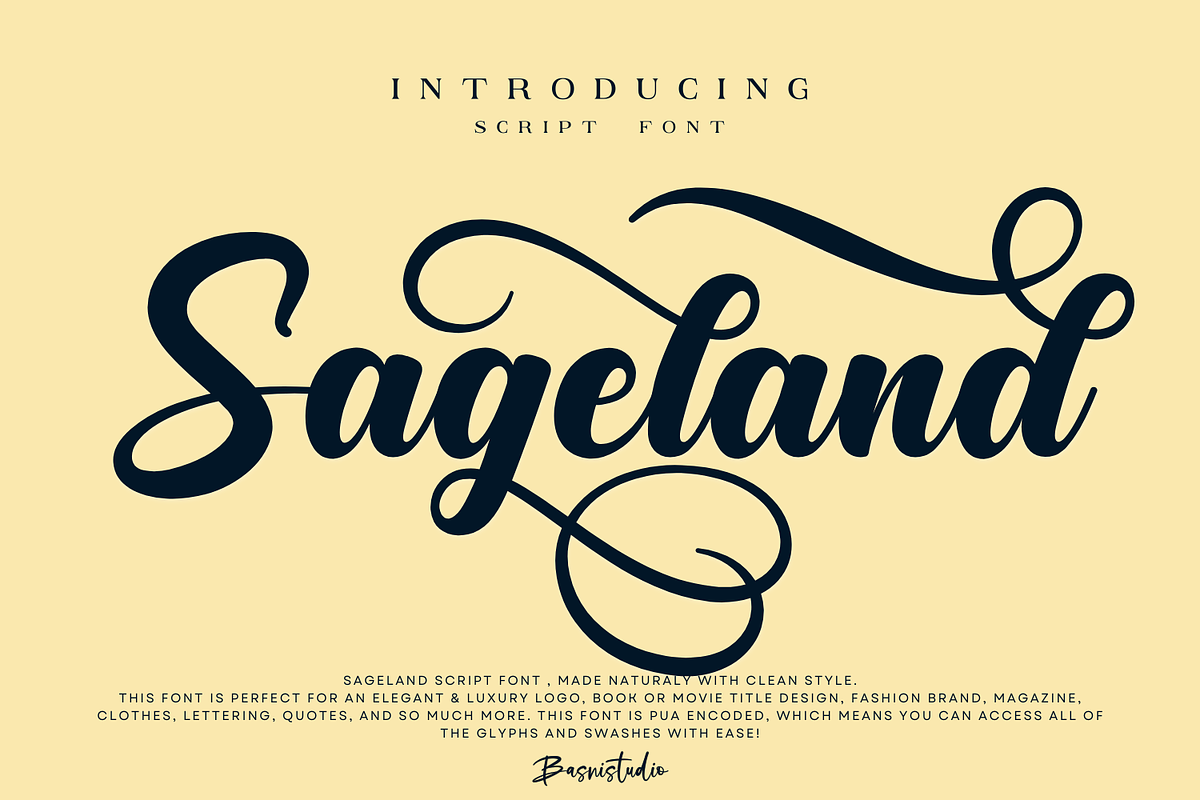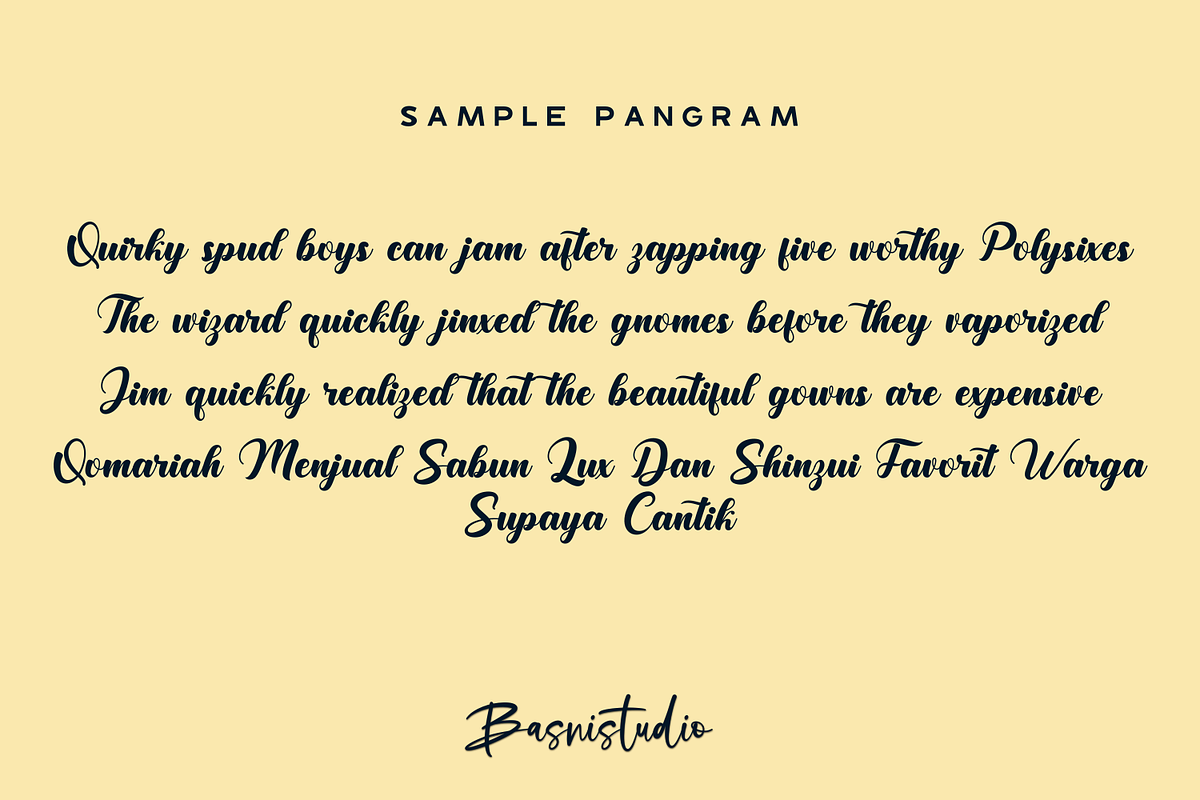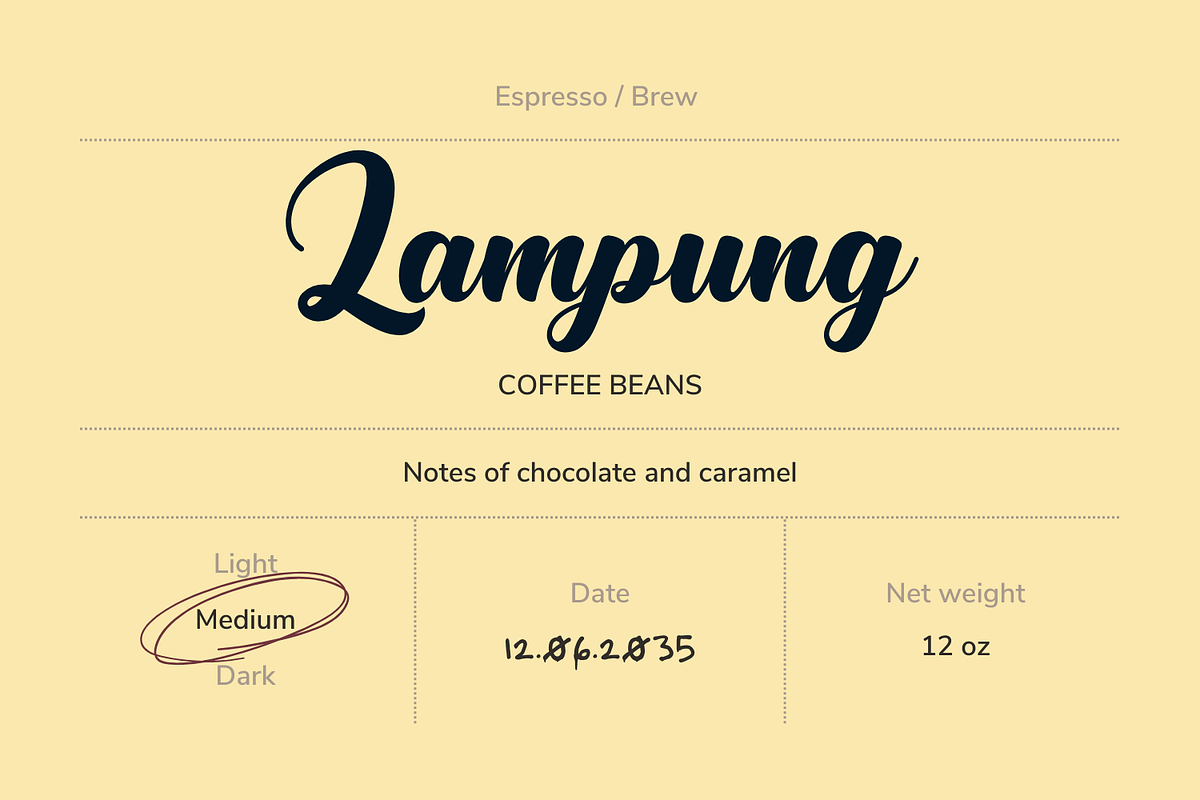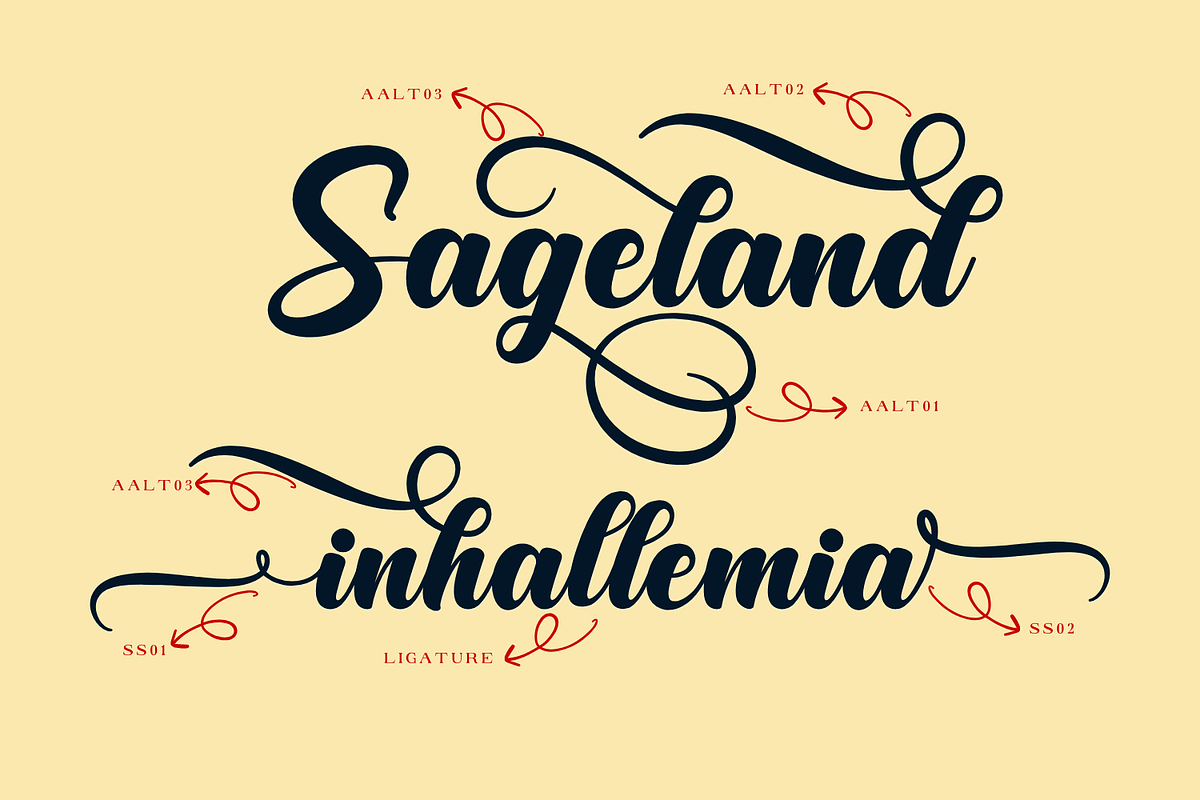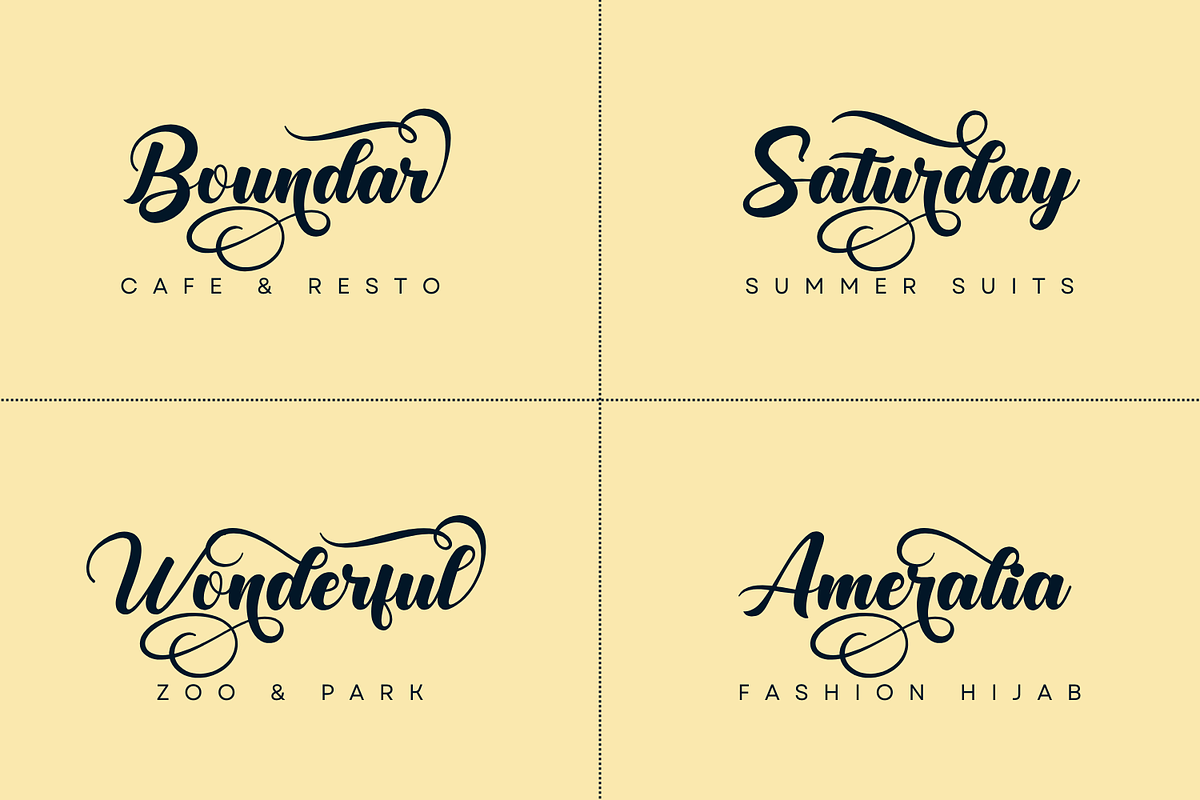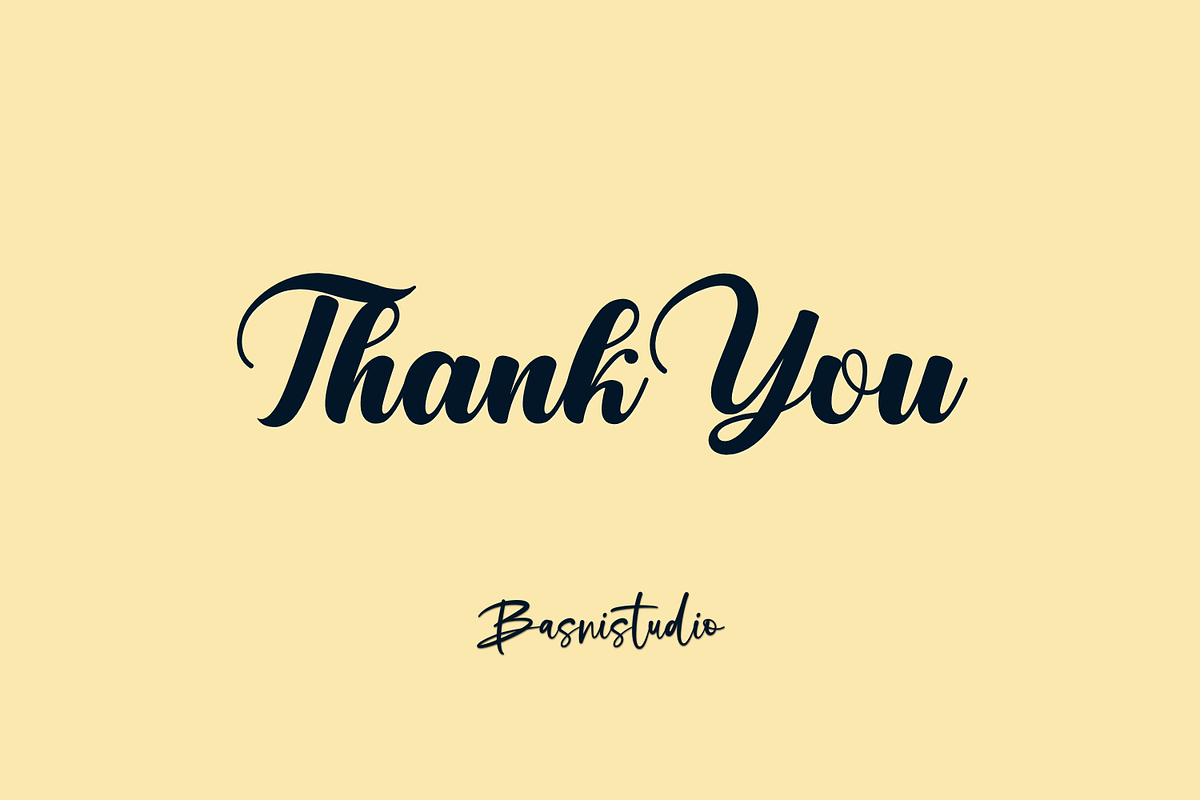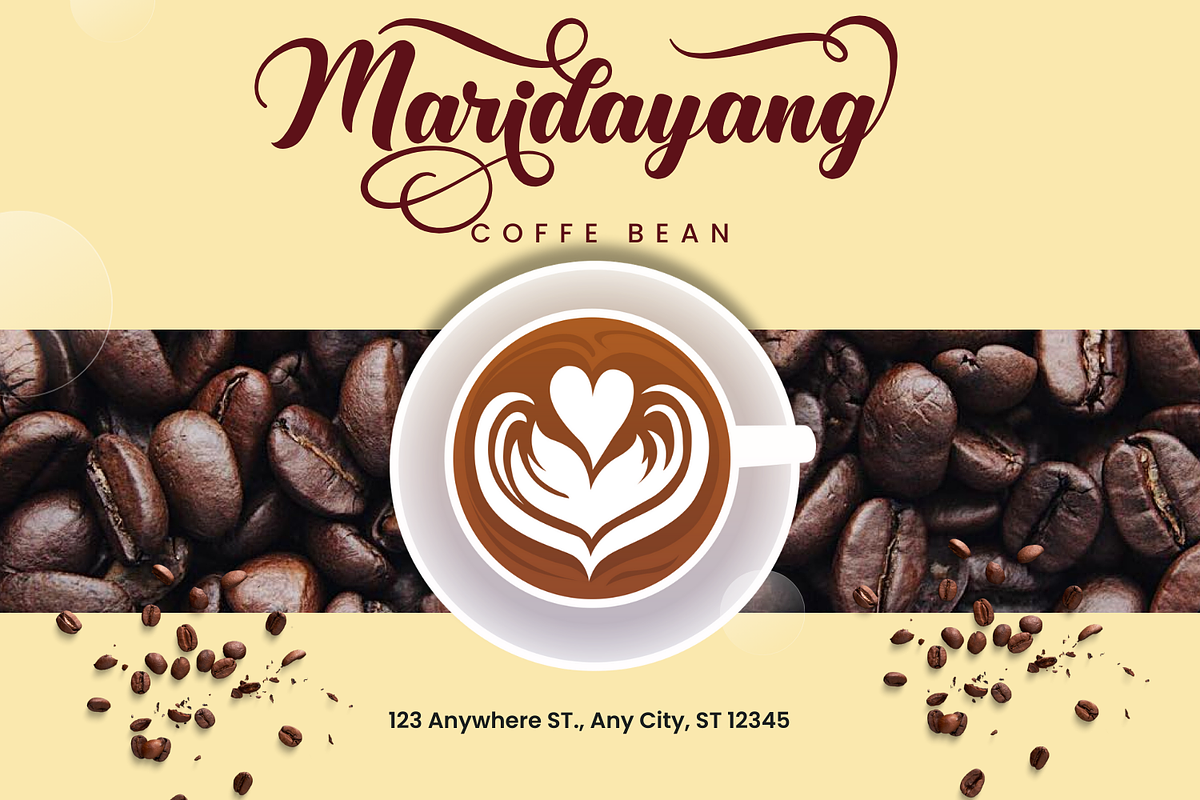
Sageland Script Font
Introducing Sageland Script Font
Sageland Script Font , made by Naturaly Brush & Clean Style.
This Font is perfect for an elegant & luxury logo, book or movie title design, fashion brand, magazine, clothes, lettering, quotes, and so much more. This font is PUA encoded, which means you can access all of the glyphs and swashes with ease!